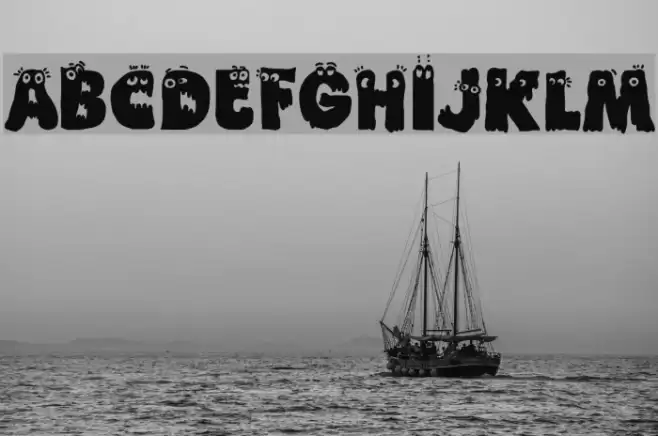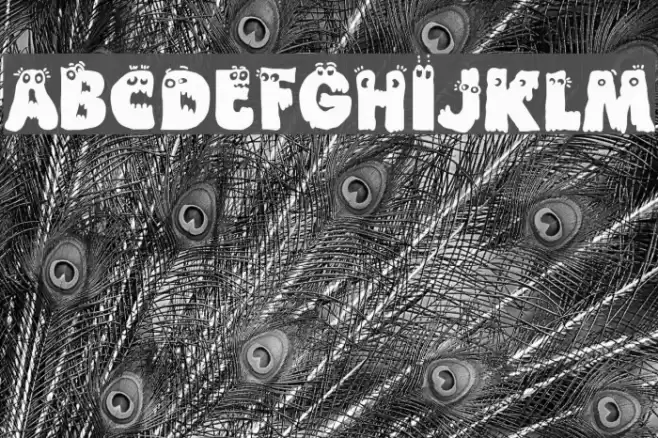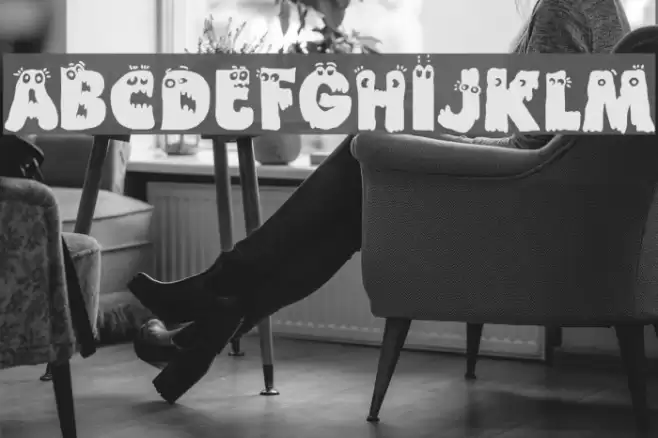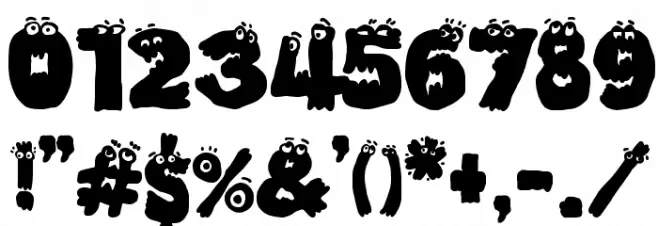
Funny Death Font
Funny Death Description
This playful and quirky font features bold, chunky letters with a unique twist—each character is adorned with cartoonish eyes, giving them a lively and humorous appearance. The letters have a slightly irregular outline, adding to the whimsical feel. The font is highly decorative, making it ideal for projects that require a fun and engaging visual element. Its boldness ensures high visibility, while the playful design captures attention and evokes a sense of fun and creativity.
A bold, playful font with cartoonish eyes on each letter, perfect for fun projects from Uncategorized fonts.
- Proposed Projects: Ideal for children's books, party invitations, comic strips, playful branding, and any project needing a whimsical touch.
- Overall Style: Playful, Whimsical